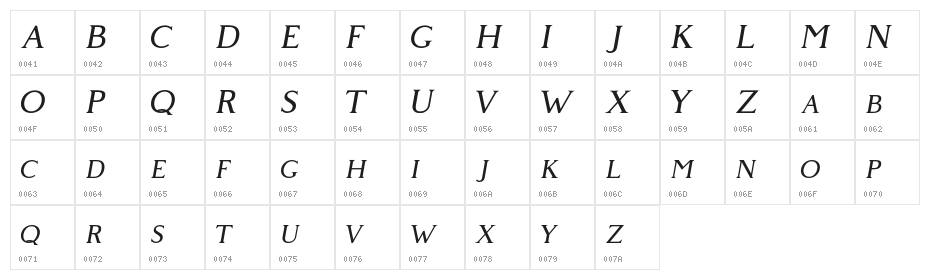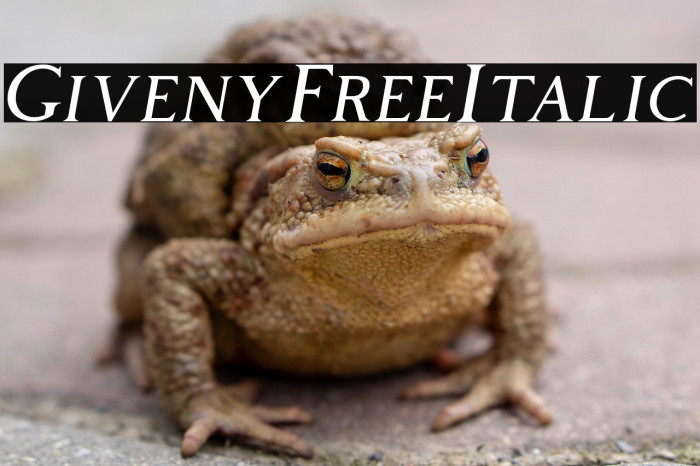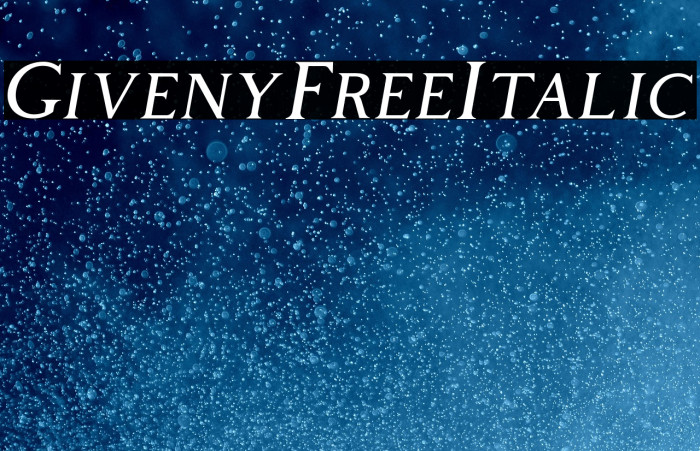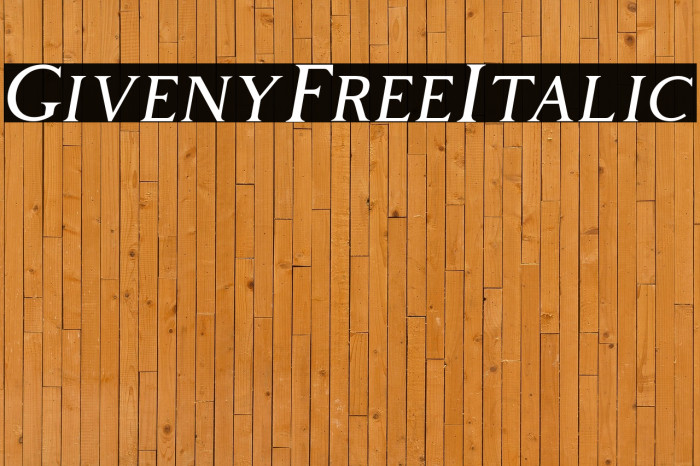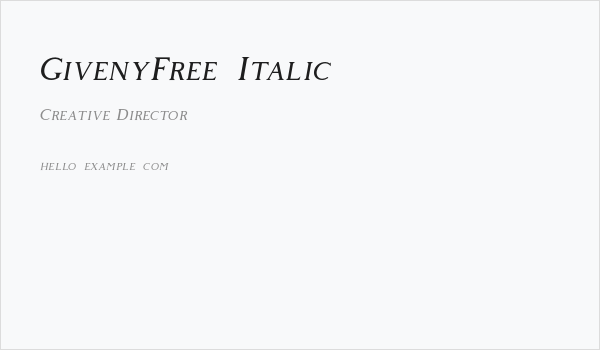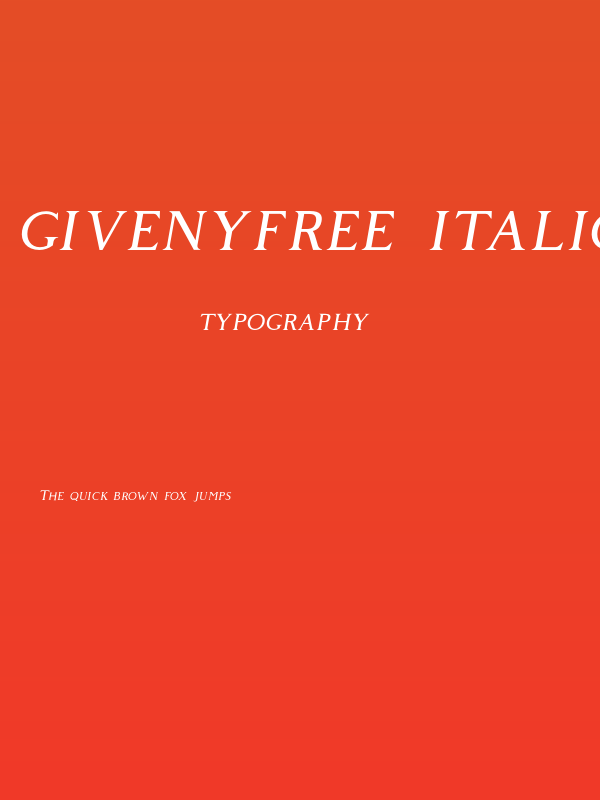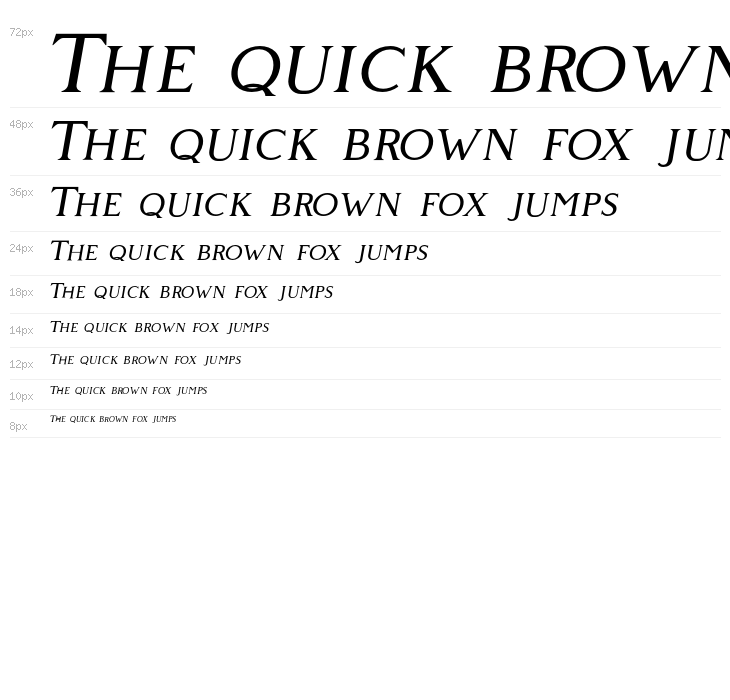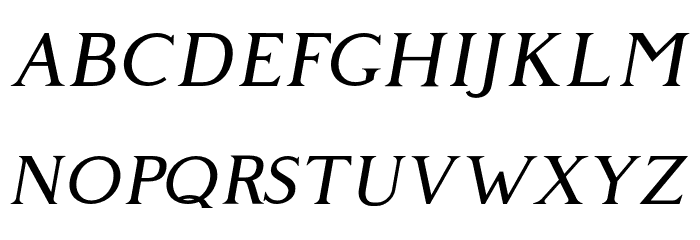
GivenyFree-Italic Font
GivenyFree-Italic Description
This font exhibits a classic italic style with a slight slant to the right, giving it a sense of elegance and fluidity. The characters are well-proportioned, with a moderate contrast between thick and thin strokes, enhancing readability while maintaining a sophisticated appearance. The serifs are subtle yet distinct, adding a touch of traditional charm. The overall design is clean and uncluttered, making it versatile for various applications. The spacing between characters is normal, ensuring clarity and legibility in both large and small sizes. This font is ideal for projects that require a refined and professional look.
Overall StyleClassic
Use CaseHeadlines, Body text, Logos
Proposed ProjectsIdeal for formal invitations, elegant branding, book covers, and editorial design.